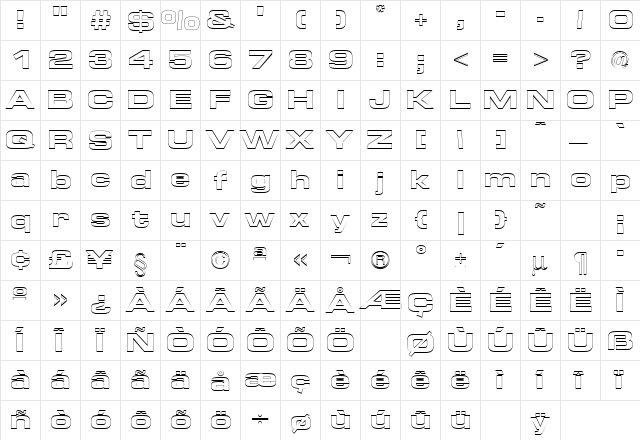
Euro Technic Extended Outline Bold
Design Context for Euro Technic Extended Outline Typeface
Euro Technic Extended Outline channels digital-age aesthetics through its sharp, structured letterforms — ideal for brands that want to signal innovation. The heavy weight commands attention and anchors typographic hierarchies.